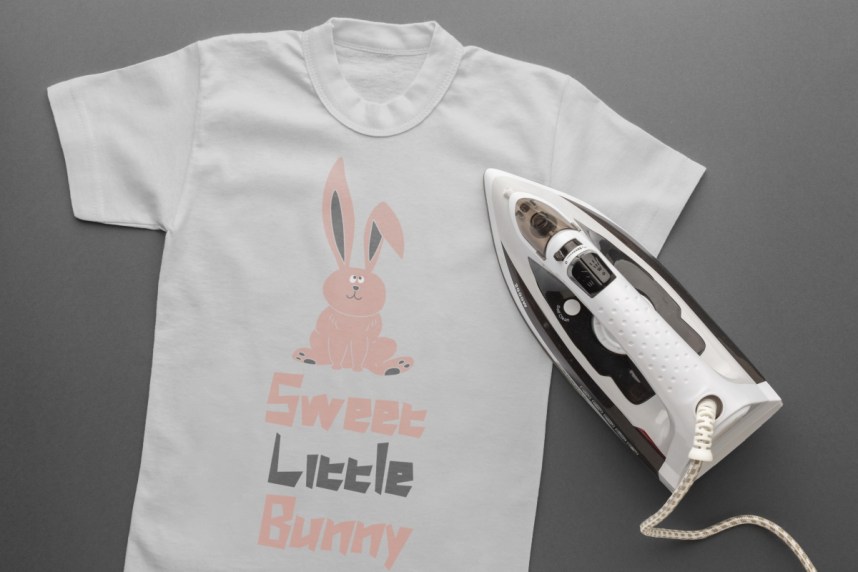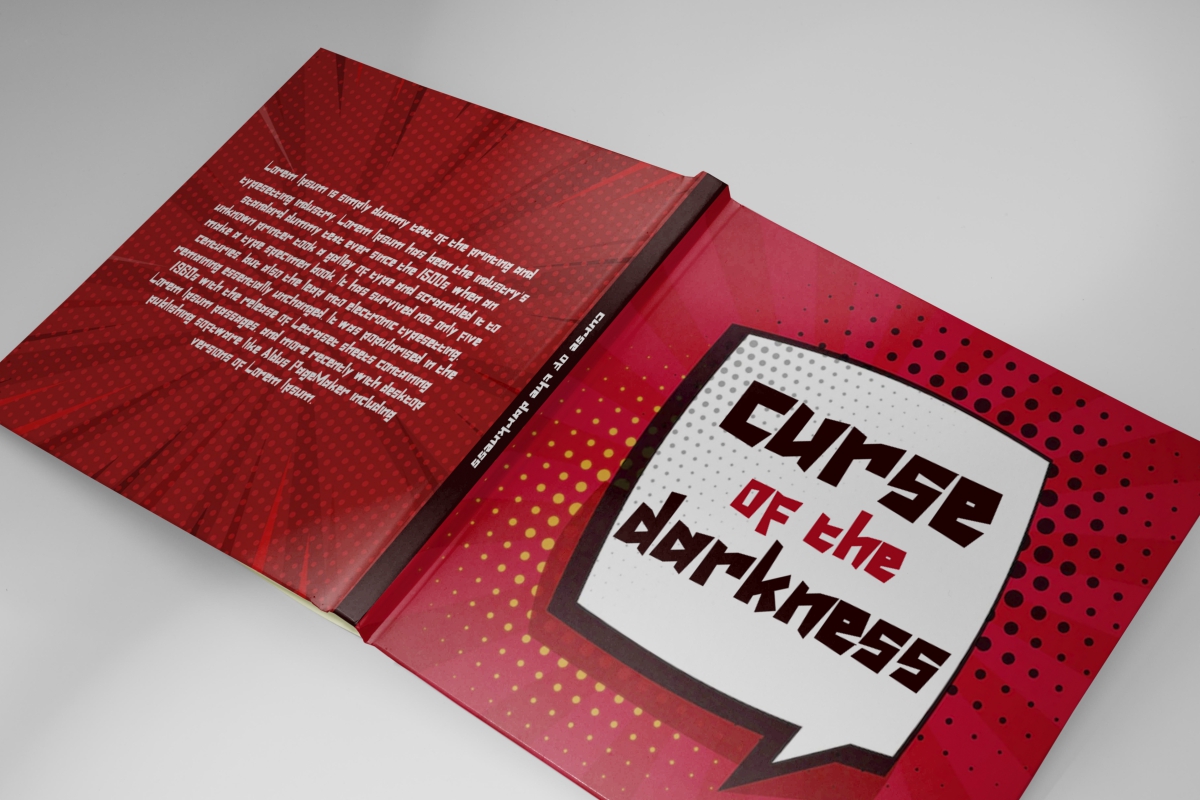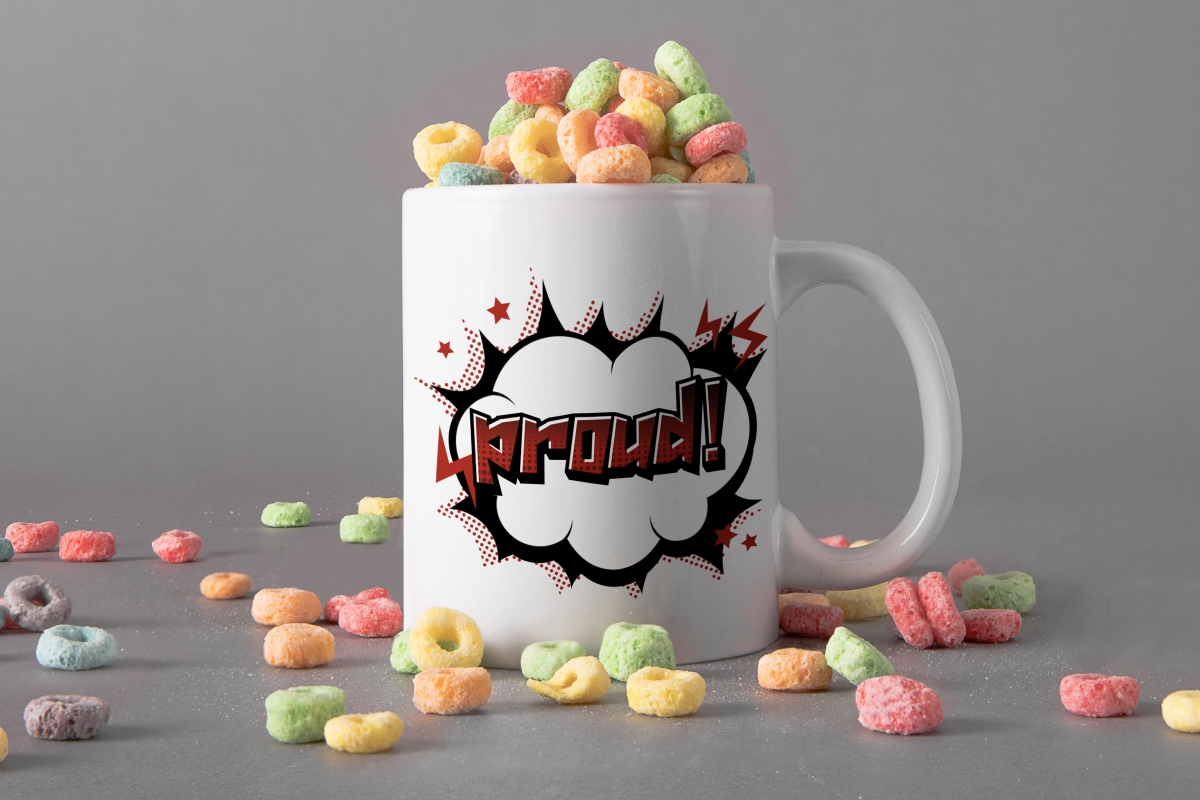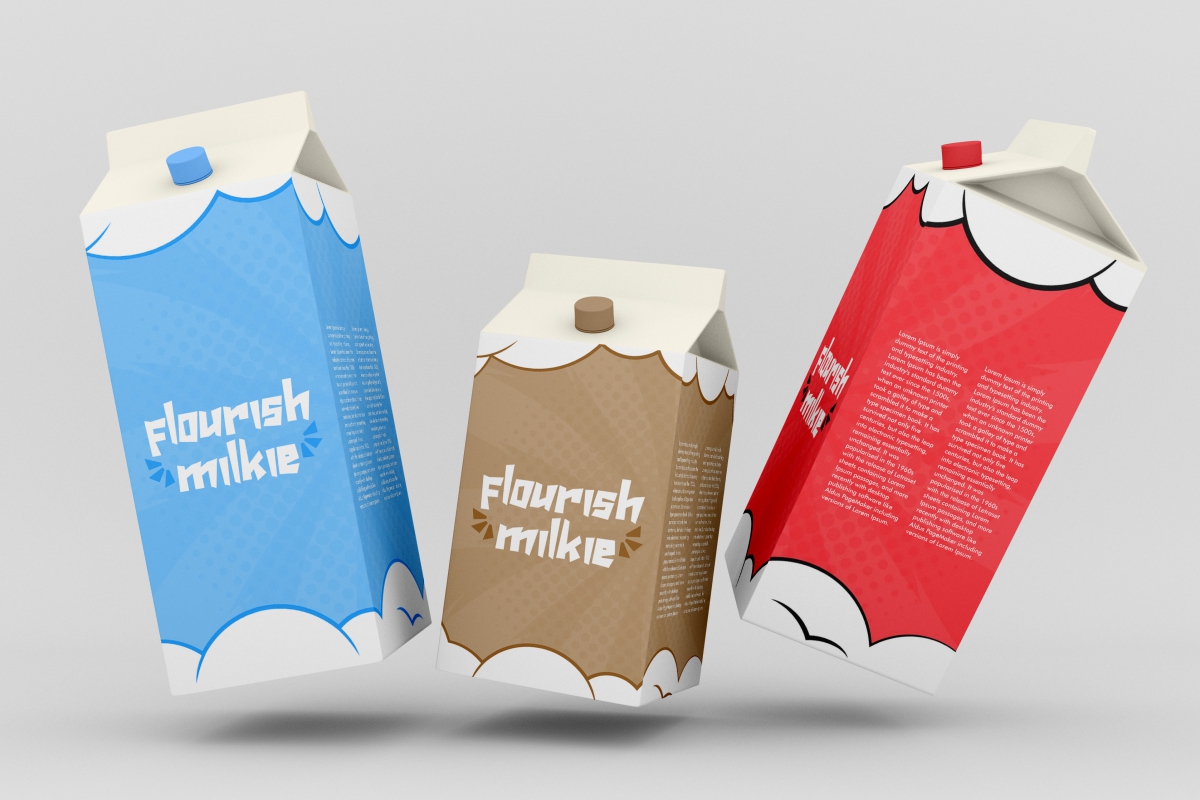
Simple Character Font
Simple Character Display Font is a playful comic inspired display font and cartoon style of heroes, created by EdricStudio. Almost all industries will be match for this typeface including: animation, author, interior design, fashion, game, homeware, movie, snack brand, toy, writer, and anything that requires a unique look that is strong and has character.
Simple Character Font comes with a full set of Uppercase and Lowercase Basic Characters, Number, large range of Punctuation and Symbol. It has a stunning characters set, perfectly managed with well spaced and kerning. Simple Character Font will be great for any projects (with extended license) including: billboard, brand logo, frame art, headline, mockup design, poster, product packaging, quote, screen printing, stationery, etc.